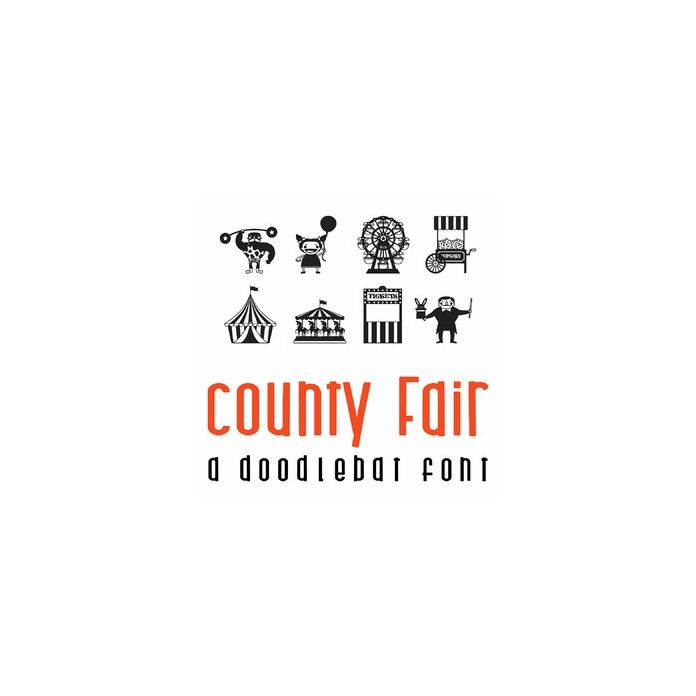
This fun doodlebat font features 26 circus and carnival themed images. Perfect for cards, gifts, decor, crafts, scrap book pages, planner stickers and more!